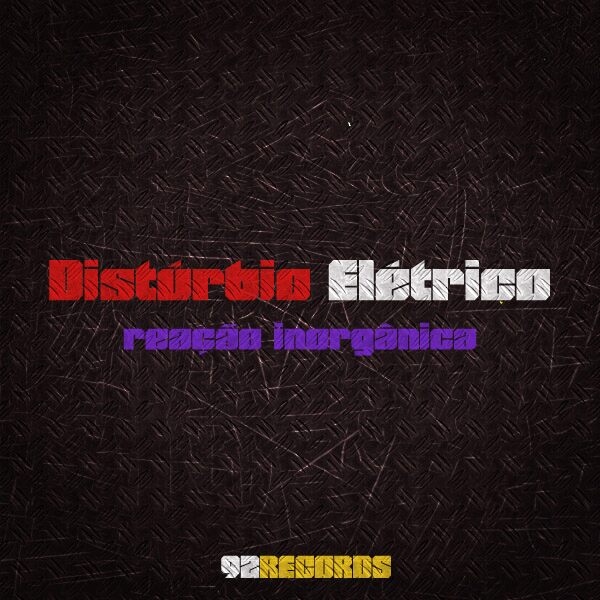
PowerChord by Diego de Oliveira is a free techno display font with towering, sharply cut letters and a dense industrial profile. Narrow gaps and sudden shifts in width give the lettering a fractured mechanical pulse.
It speaks directly to rock and gaming audiences. Concert posters and album artwork can draw on its compressed force and hard-edged stage presence. The same aggressive geometry suits esports branding and action-game screens, where the letters can become part of a metallic interface.
PowerChord
Diego de Oliveira